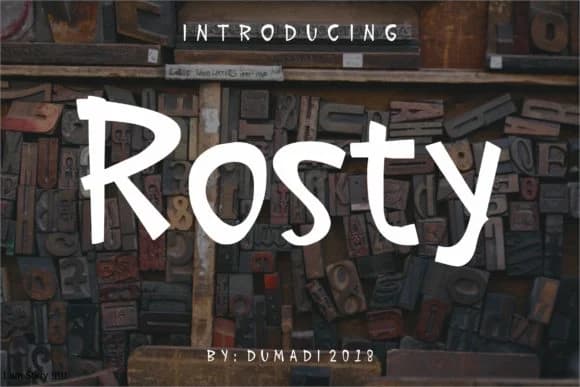
Rosty Font by DUMADI is a contemporary script typeface with playfully irregular letterforms that bring genuine organic character to any creative project. The unpredictable rhythm and flowing variation between individual letterforms creates a distinctive visual texture that feels authentically hand-drawn and human-made, making it especially suited for designs that need personality, warmth, and artistic sensibility rather than sterile precision and mechanical uniformity. This character-rich approach gives each design a bespoke quality that mass-produced typefaces cannot replicate.
This distinctive typeface excels for wedding invitation suites seeking an artistic, genuinely non-formal aesthetic that feels personal and intimate, boutique product packaging that benefits from a convincing handcrafted impression and artisanal feel, rustic event signage and announcements with vintage charm and nostalgic appeal, and personalized greeting card designs that require authentic warmth and lived-in character. The irregular structure of each letterform means they stand out individually within compositions, giving branding projects and custom stationery a bespoke, one-of-a-kind quality that standard typefaces simply cannot achieve. Whether you're designing vintage poster layouts, creating Instagram Stories headers for a creative business, or crafting DIY labels and handmade signage, Rosty's quirky personality and organic movement add genuine visual distinction to your work.
Rosty Font is a script font that shines as a display or heading face. Pair it with a clean sans-serif or serif font for body text β the contrast creates a clear hierarchy while the two styles stay balanced and easy to read.